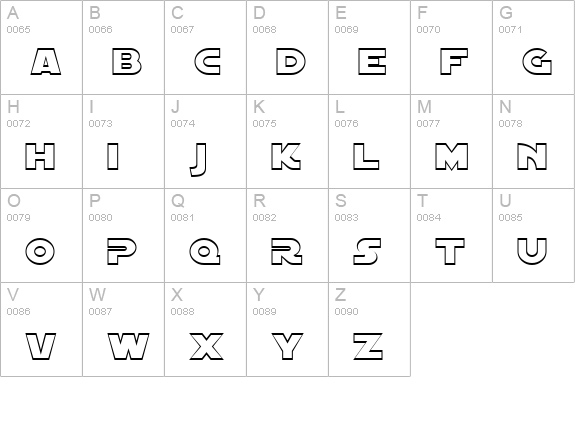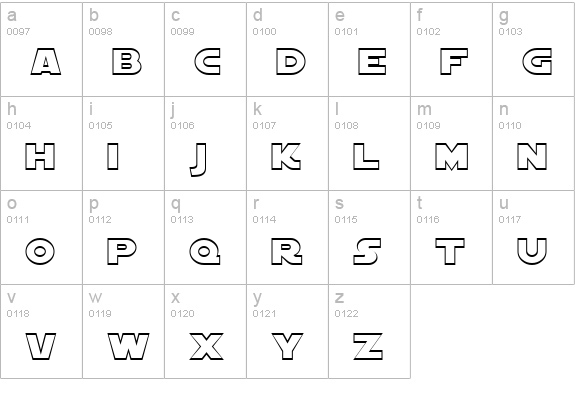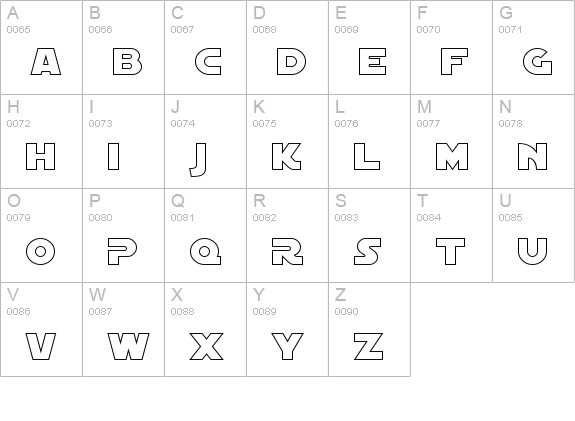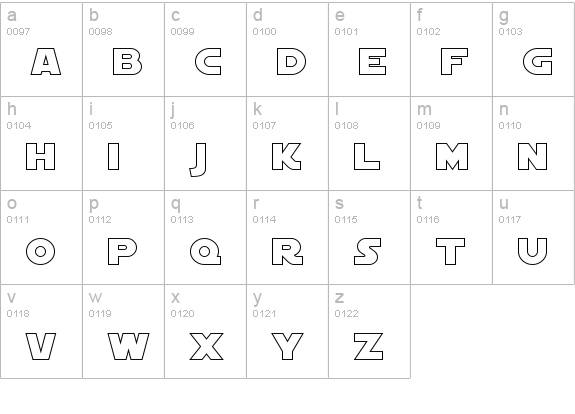
SF Distant Galaxy Outline Font Details
SF Distant Galaxy Outline font is a stunning display font that will transport your designs to another dimension. With its futuristic and space-inspired aesthetic, this font captures the essence of a distant galaxy, making it perfect for sci-fi themed projects, futuristic branding, and other imaginative designs. The outline style adds an extra layer of depth and uniqueness to your typography, giving your text a captivating and eye-catching appearance. Whether you're designing a poster for a sci-fi movie, creating a logo for a tech company, or even designing a book cover for a futuristic novel, SF Distant Galaxy Outline font is the perfect choice to make your designs stand out. What's even better is that SF Distant Galaxy Outline font is available for free download at FontsMarket.com. This means that you can easily access and add this amazing font to your design arsenal without any cost. This font offers not only exceptional quality but also incredible value, allowing you to create professional and visually stunning designs without breaking the bank. So, don't miss out on this opportunity to elevate your designs to a whole new level. Download SF Distant Galaxy Outline font for free at FontsMarket.com and let your creativity soar across the galaxies.